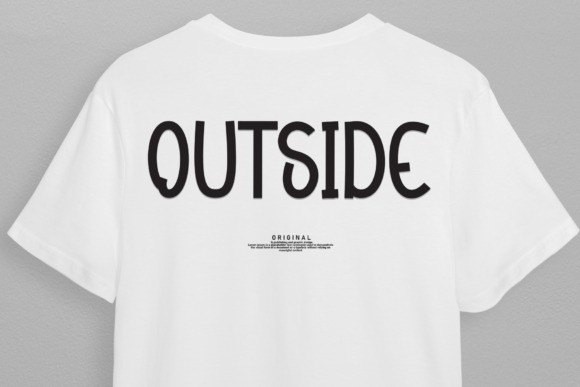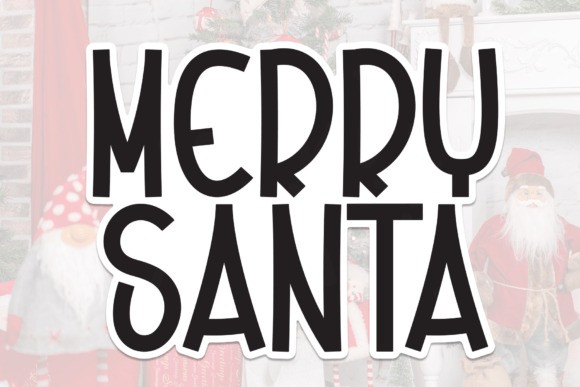
Merry Santa Font
Merry Santa Font is an enchanting handwritten font. This versatile script font has a wide spectrum of applications ranging from greeting cards to headlines and is guaranteed to add a romantic feel to your next project.